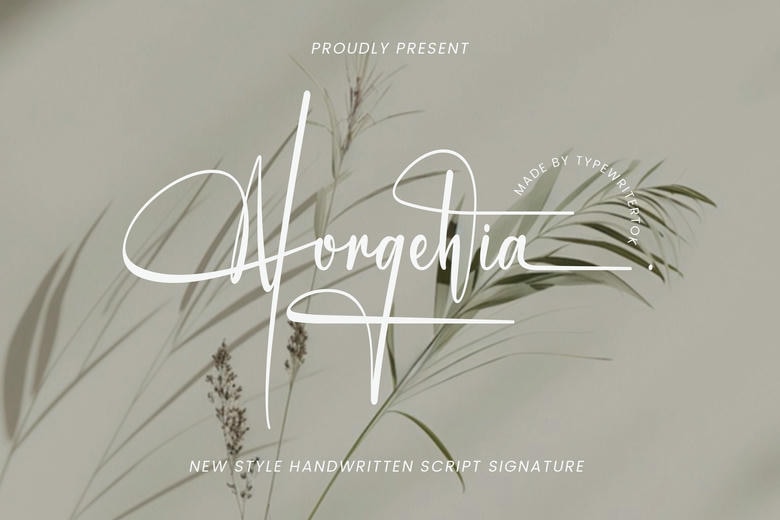
Norgehia Font
Norgehia is a script signature font with an elegant, sophisticated look. Its smooth strokes and natural handwritten style make it a great choice for branding, logos, wedding invitations, business cards, social media, and luxury packaging. Its graceful, stylish design works well for projects that need a refined and personal feel.
Norgehia Handwritten Script Font